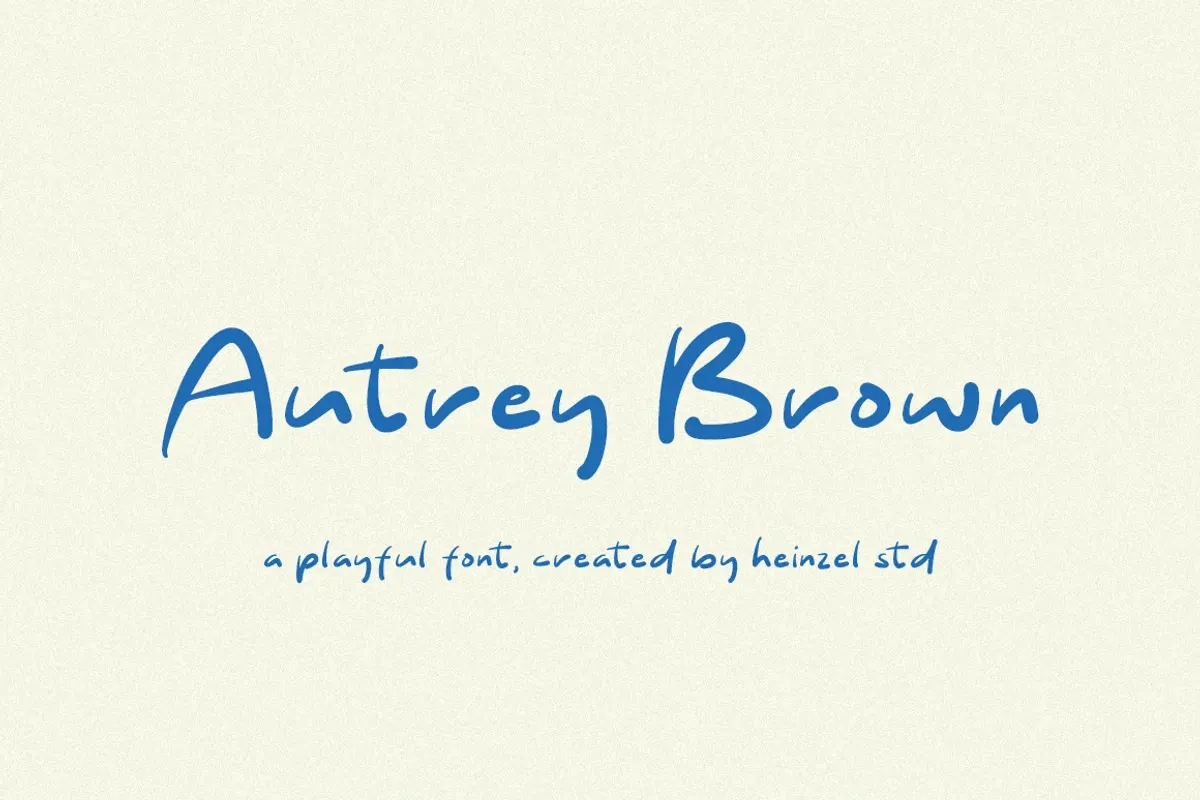
Autrey Brown Handwritten Font Free Download
The Autrey Brown Handwritten Font Free Download is a charming and authentic handwritten script that adds a personal, organic touch to your designs. With its flowing curves and natural strokes, this font is perfect for creating logos, invitations, greeting cards, and branding materials that need a warm, personal feel. The distinctive, casual style of Autrey Brown makes it an ideal choice for projects that aim for a relaxed yet sophisticated look. Please note, for commercial use, a license purchase is required. However, you can easily download the Autrey Brown Handwritten Font Free Download for free for personal use and explore its creative potential. Whether you're designing for weddings, creative branding, or personal projects, this font will add a friendly, handwritten charm to your typography. Download the Autrey Brown Handwritten Font Free Download today and bring a fresh, personal flair to your designs.